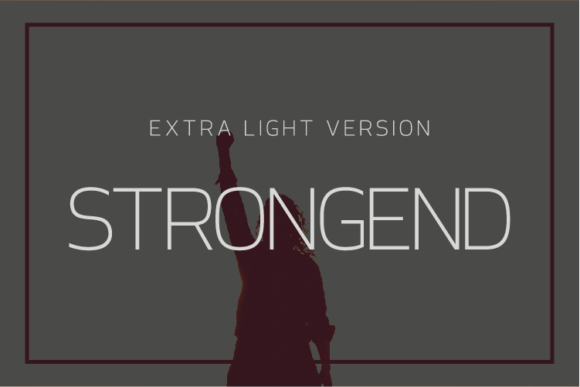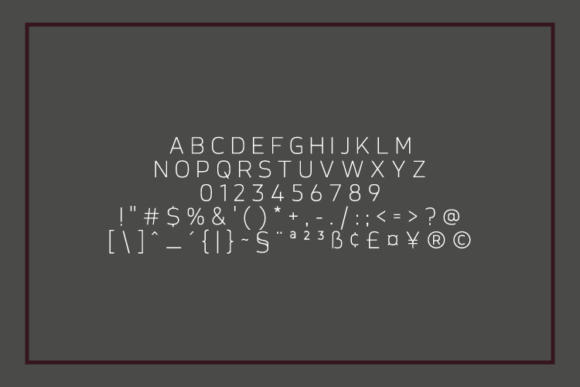
Strongend Extra Light Font
About Strongend Extra Light Font
Strongend is a distinct, elegant sans serif font that blends traditional influences into a contemporary aesthetic. Its well balanced Latin details contain distinctive contrasts. Use Strongend to achieve an exquisite, yet subtle look and maximum versatility.